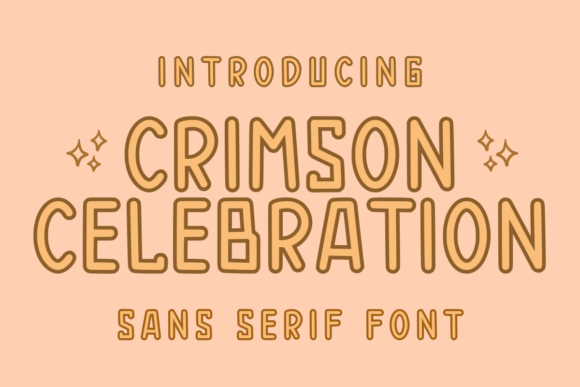
Crimson Celebration Font: The Ultimate Choice for Vibrant and Playful Designs
The world of typography is vast and diverse, with numerous font styles to choose from, each with its unique characteristics and uses. Among these, the Crimson Celebration font stands out as a vibrant sans serif font with a bold outline style, perfect for creating eye-catching party invitations, retro designs, and playful branding. In this article, we’ll delve into the features and benefits of the Crimson Celebration font, exploring how it can bring charm and energy to your creations.
What is Crimson Celebration Font?
Crimson Celebration is a modern sans serif font with a bold and vibrant outline style. Its lively personality makes it an ideal choice for designs that require a playful and energetic touch. The font’s clean lines and simple shapes give it a contemporary look, while its bold outline adds a touch of sophistication and elegance.
Key Features of Crimson Celebration Font
- Vibrant Sans Serif Font: Crimson Celebration is a sans serif font, meaning it doesn’t have serifs or small lines at the end of the letters. This gives it a clean and modern look.
- Bold Outline Style: The font features a bold outline style that adds depth and dimension to your designs.
- Playful and Energetic: Crimson Celebration has a lively personality that makes it perfect for playful and energetic designs.
- Perfect for Party Invitations: The font’s vibrant and playful style makes it an ideal choice for party invitations, event posters, and other festive designs.
Uses of Crimson Celebration Font
Crimson Celebration font is a versatile typeface that can be used in various design projects. Here are some of the most popular uses of this font:
Popular Use Cases
- Party Invitations: Create eye-catching party invitations that set the tone for a fun and festive event.
- Retro Designs: Add a touch of nostalgia to your designs with Crimson Celebration’s bold and playful style.
- Playful Branding: Use Crimson Celebration to create a playful and energetic brand identity that appeals to a young audience.
- Festive Themes: The font’s lively personality makes it perfect for festive themes, such as holiday cards, event posters, and social media graphics.
Benefits of Using Crimson Celebration Font
Using Crimson Celebration font in your designs offers several benefits. Here are some of the advantages of choosing this font:
Why Choose Crimson Celebration Font?
- Unique and Eye-Catching: Crimson Celebration’s bold outline style and vibrant personality make it a unique and eye-catching font that grabs attention.
- Versatile: The font’s versatility makes it suitable for various design projects, from party invitations to playful branding.
- Easy to Read: Despite its bold style, Crimson Celebration is easy to read, making it perfect for designs that require a clear and concise message.
- Customizable: The font can be customized to fit your design needs, allowing you to experiment with different colors, sizes, and styles.
Tips for Using Crimson Celebration Font
To get the most out of Crimson Celebration font, here are some tips to keep in mind:
Design Tips
- Pair with Complementary Fonts: Pair Crimson Celebration with complementary fonts to create a harmonious and visually appealing design.
- Experiment with Colors: Don’t be afraid to experiment with different colors and gradients to add depth and dimension to your designs.
- Use for Headlines and Titles: Crimson Celebration is perfect for headlines and titles, where its bold style can make a statement.
- Keep it Simple: Don’t overdo it – keep your design simple and clean to let the font shine.
In conclusion, Crimson Celebration font is a vibrant and playful sans serif font with a bold outline style that’s perfect for party invitations, retro designs, and playful branding. Its lively personality brings charm and energy to your creations, making it ideal for festive themes and joyful projects. With its versatility, ease of use, and customizable features, Crimson Celebration is a great addition to any designer’s font library.